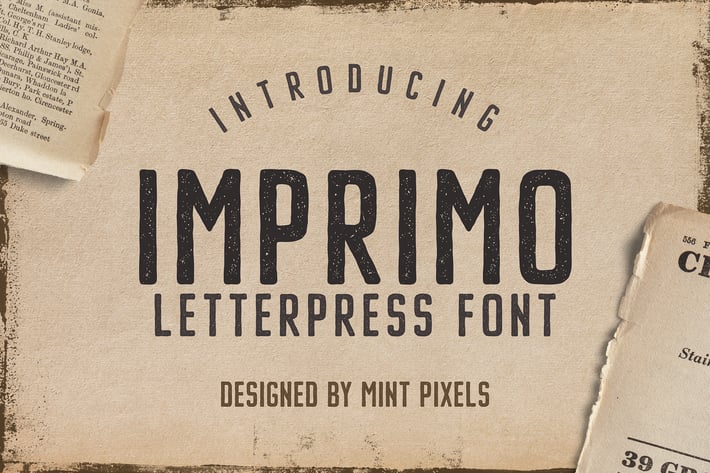
Imprimo Letterpress Font
Imprimo is an uppercase sans-serif letterpress type font. It is a vintage looking decorative bold distressed display great mainly for titling.
Imprimo font was designed by Mint Pixels and comes in two styles - textured and solid, both in OTF file format.